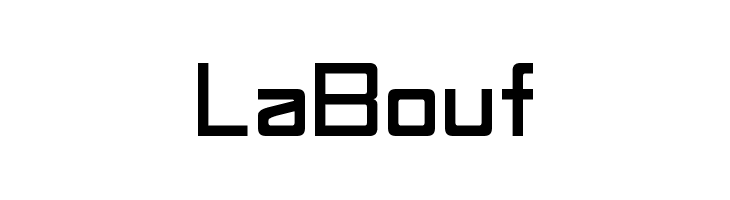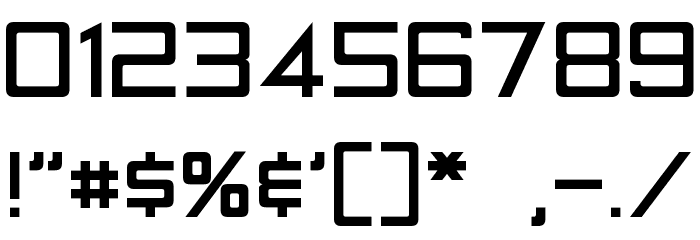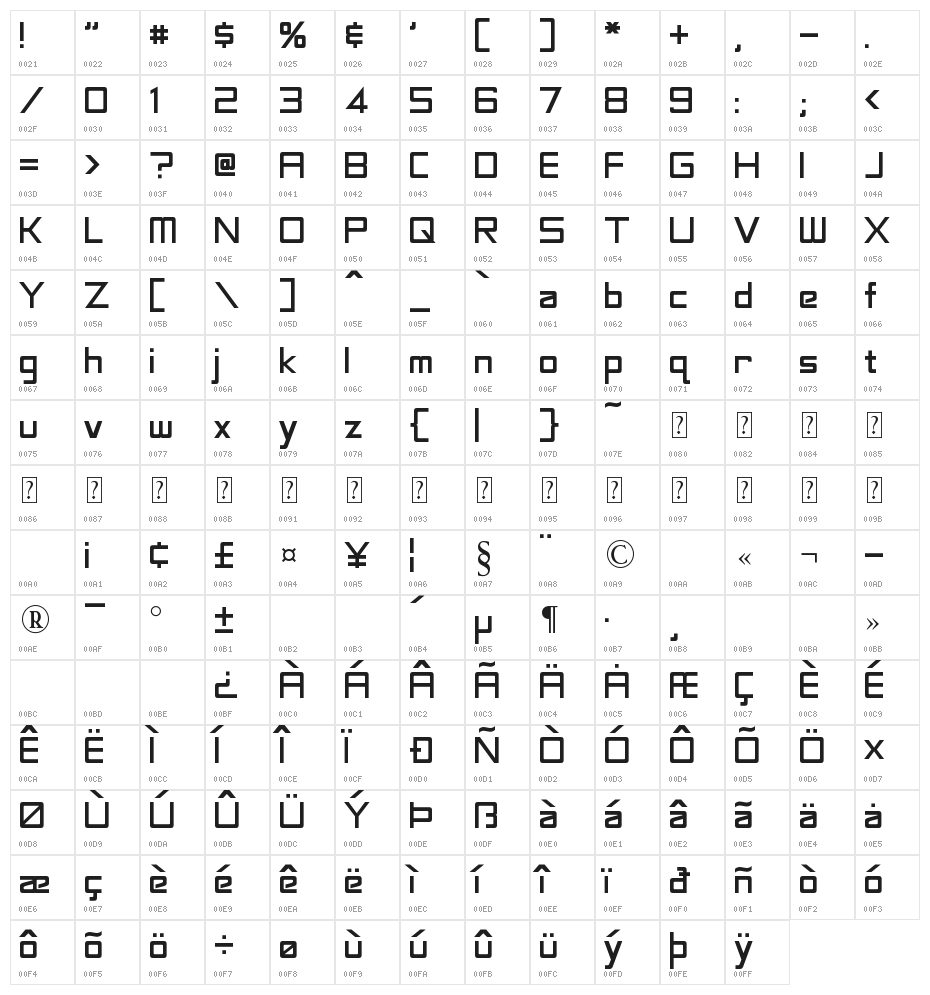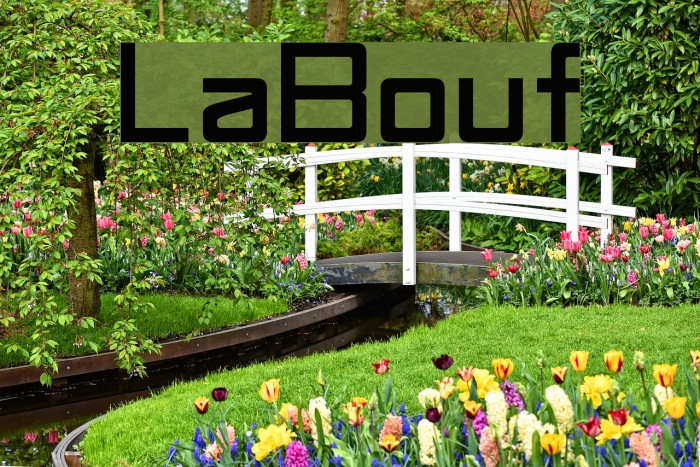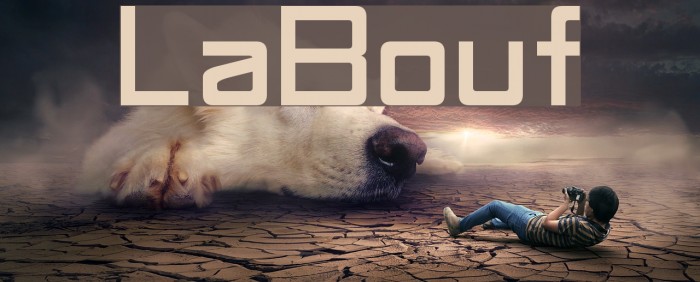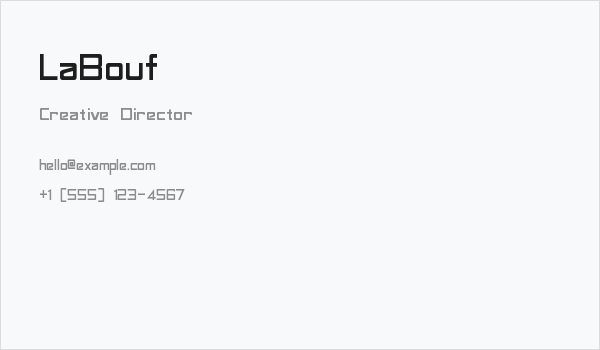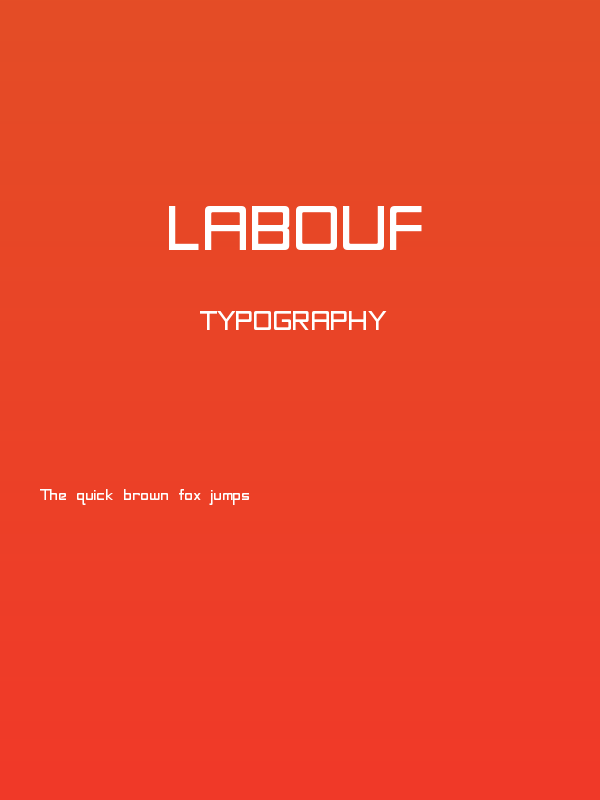
LaBouf Font
LaBouf Description
This font features a geometric and modern design with a strong emphasis on clean lines and uniformity. The characters are constructed with a consistent stroke width, creating a balanced and cohesive appearance. The uppercase letters are bold and assertive, while the lowercase letters maintain a similar structure, offering a harmonious blend. The numerals are clear and legible, making them suitable for various applications. Special characters are designed to complement the overall style, ensuring versatility in usage. The font's design is both functional and aesthetically pleasing, making it ideal for contemporary projects.
| Proposed Projects | Ideal for branding, digital interfaces, signage, and editorial design. |